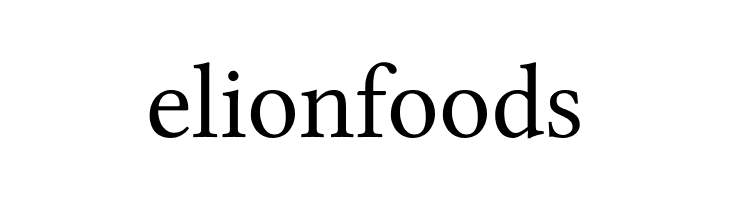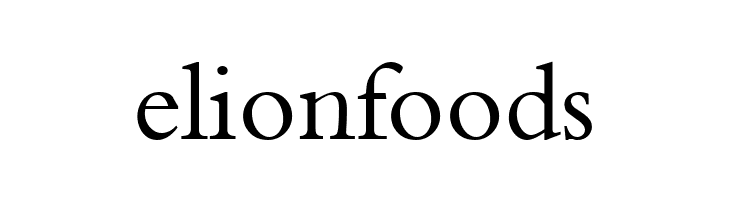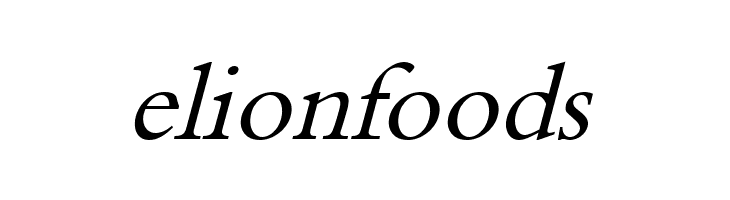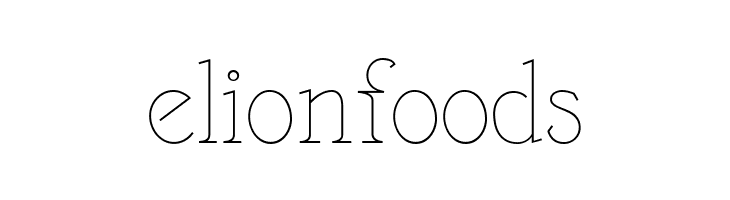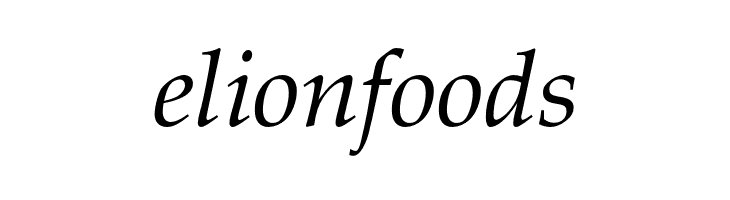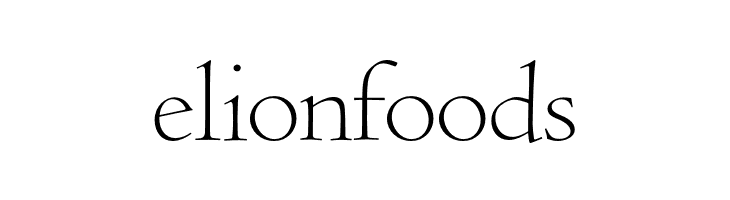
A classic serif font with elegant proportions and refined serifs.
A classic serif font with elegant strokes and refined serifs.
A classic serif font with elegant and refined uppercase letters and numerals.
A classic serif font with elegant strokes and refined proportions.
An elegant serif typeface with a refined italic style and graceful curves.
A modern serif font with thin strokes and elegant, refined details.
A thin, elegant font with high contrast and refined strokes.
A classic serif font with elegant strokes and a refined appearance.
An elegant italic serif font with a classic and refined style.
An elegant and refined font with thin, elongated strokes and a sophisticated appearance.